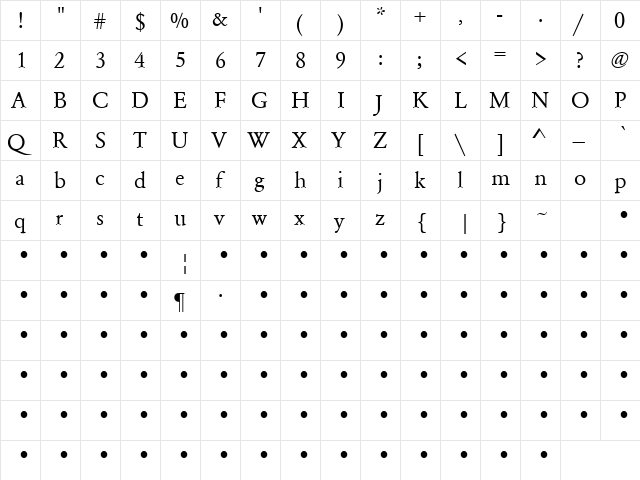
QTGaromand Regular
Design Context for QTGaromand Typeface
QTGaromand takes a measured approach to typography — its balanced proportions and neutral character make it a reliable workhorse for both digital and print work.